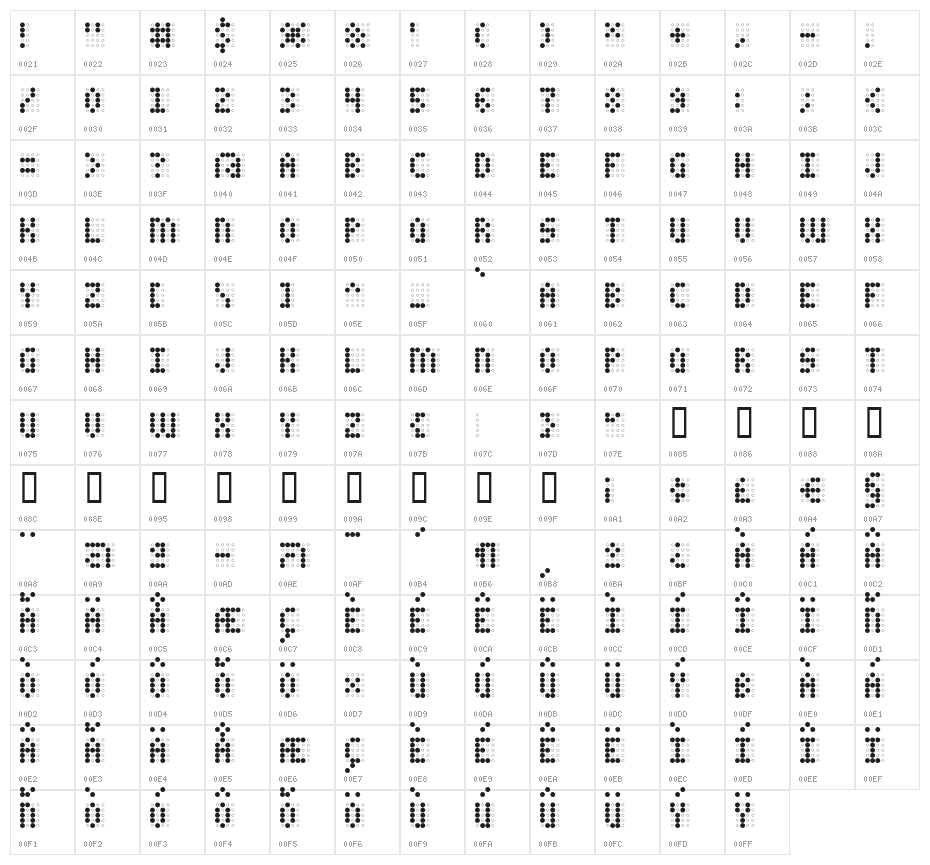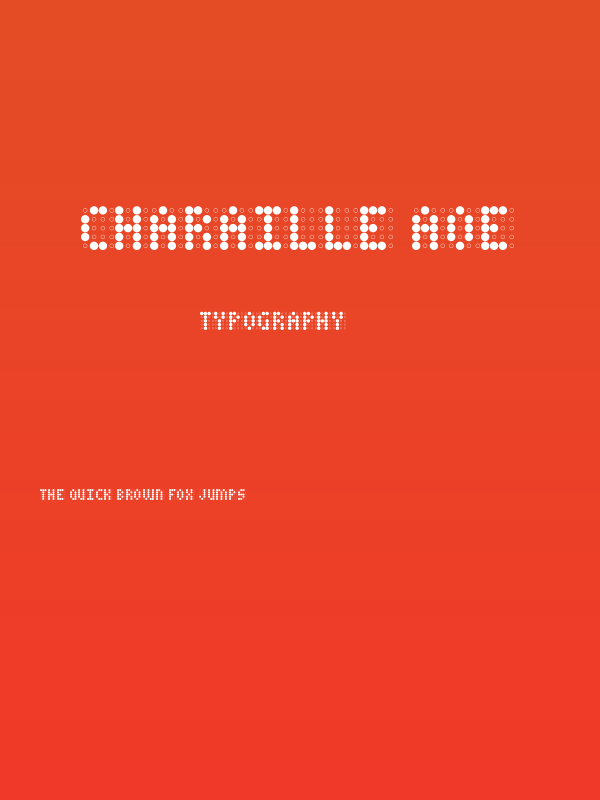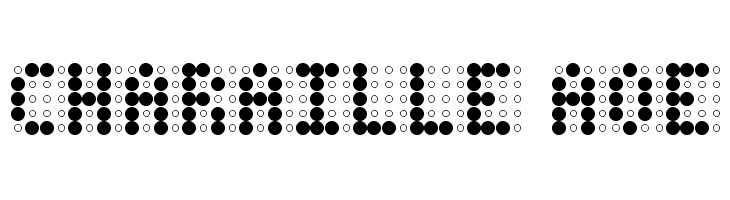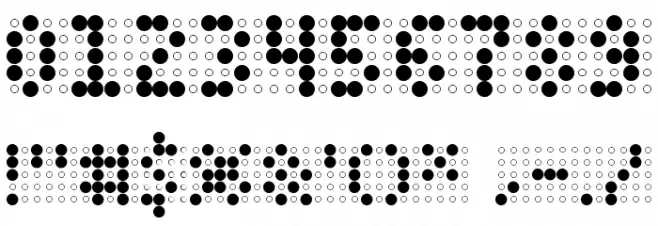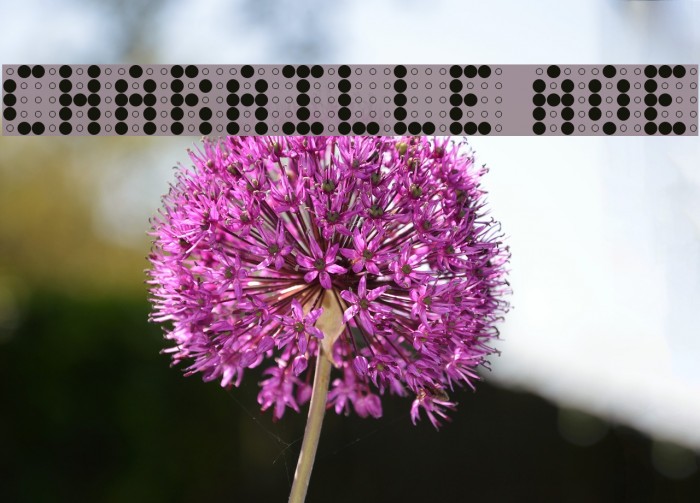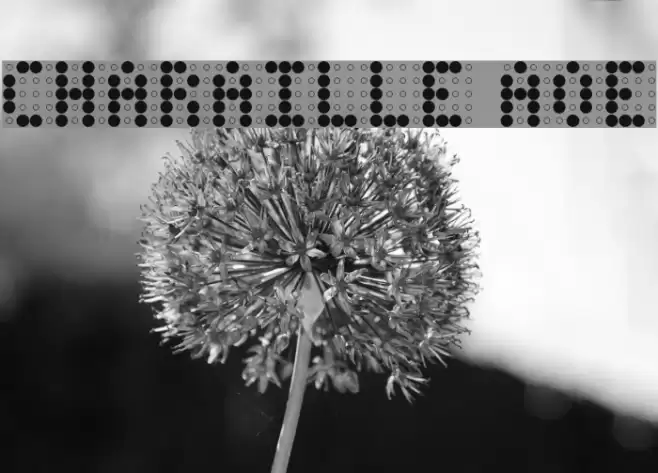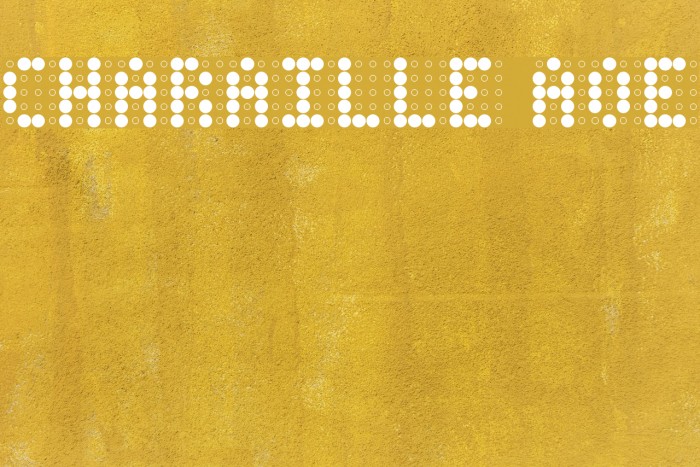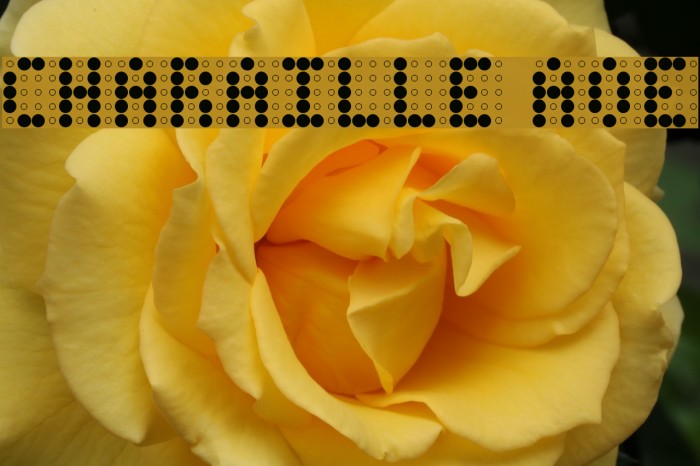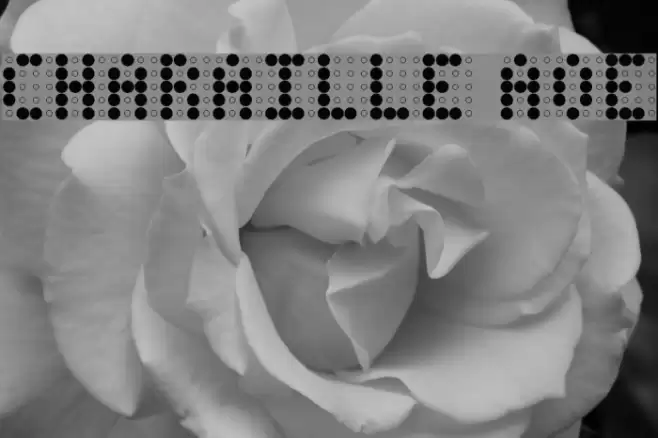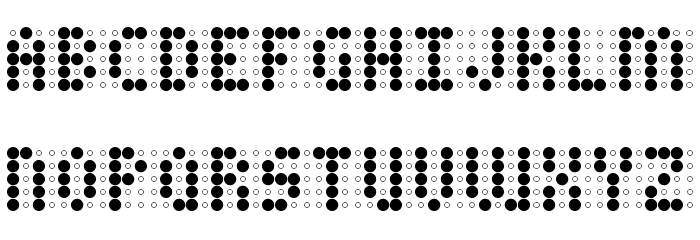
Charaille AOE Font
Charaille AOE Description
This font features a unique dot matrix design, where each character is constructed using a grid of circular dots. The dots are evenly spaced, creating a uniform and structured appearance. The characters are bold and easily distinguishable, making them suitable for digital displays or designs that require a modern and tech-inspired look. The font maintains a consistent weight throughout, with no variation in stroke thickness, resulting in a low contrast style. Its geometric and modular nature gives it a futuristic and digital aesthetic, ideal for projects that aim to convey innovation and technology.
| Proposed Projects | Ideal for digital displays, tech-themed posters, modern art installations, and innovative branding projects. |